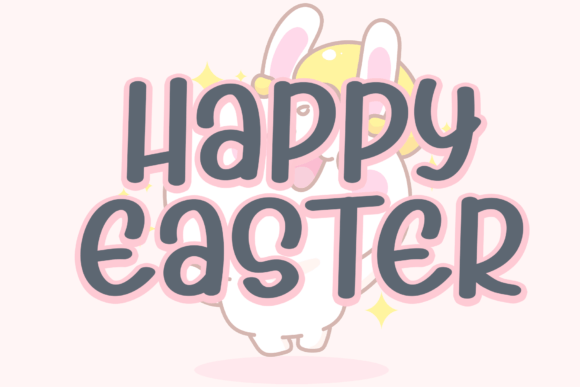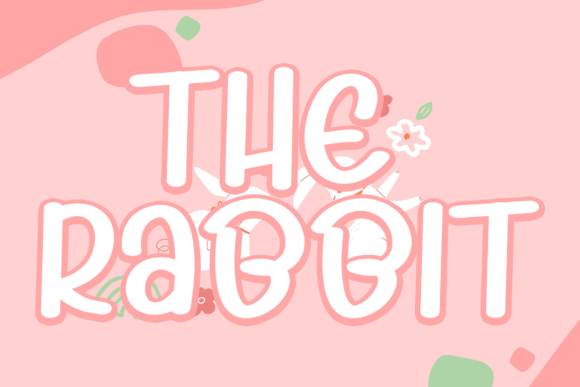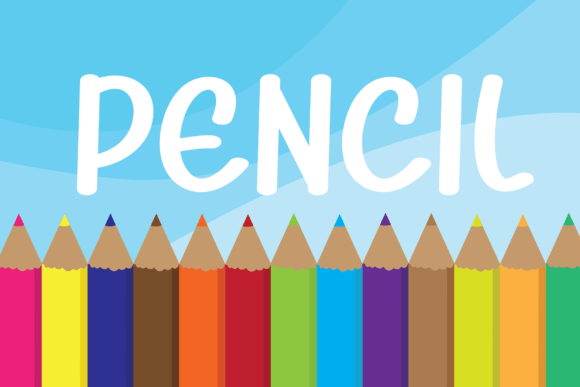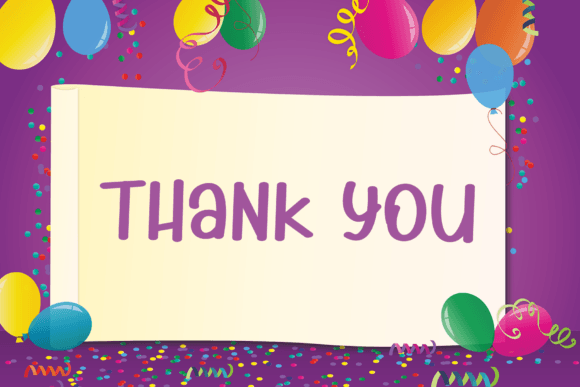
The Perfect Font for a Whimsical Touch
Have you ever been stuck brainstorming the perfect font for a design project, only to have a spark of creativity strike when you least expect it? Maybe it was a stroll through a field of flowers, a conversation with a friend, or simply a moment of silence that led you to the perfect font. For many designers, this moment of clarity often involves the search for a font that adds a touch of whimsy and personality to their work.
Enter the adorable Bunny Font, a sweet and friendly handwritten font that’s sure to bring a smile to anyone’s face. Ideal for writing wedding invitations, cards, or any other design that needs a fun touch, Bunny Font is a valuable addition to any designer’s toolkit.
With its cute and playful style, Bunny Font is a must-have for designers looking to add a little extra magic to their designs.
Bunny Font Key Features
- Size: The font comes in 4 different font sizes, including a condensed version, a regular version, a bold version, and an outline version.
- Resolution: The font is designed for use at high resolutions (up to 1200 dpi) and can be scaled up or down without losing its quality.
- Unique Characteristics: Bunny Font features a unique, hand-drawn design with a playful and whimsical feel, making it ideal for use in children’s books, magazines, and other publications.
- Vector Graphics: Bunny Font is a vector-based font, which means it can be scaled up or down without losing its quality and can be easily edited using vector graphics software.
Bunny Font Review
When I first saw the Bunny Font, I was intrigued by its playful and whimsical design. The font is perfect for those looking to add a touch of cuteness to their designs. ✨ One of the standout features of this font is its versatility. It comes in various styles and weights, making it suitable for a wide range of applications, from logos and branding to children’s books and product packaging.
Here are some of the key features that make the Bunny Font shine:
- Wide range of styles and weights
- Perfect for children’s content and playful branding
- May not be suitable for formal or professional applications
- Some characters may not be as detailed or refined as others
- Limited support for non-Latin scripts
Overall, I think the Bunny Font is a great choice for designers looking to add a playful touch to their work. While it may not be suitable for every project, its versatility and customizability make it a great option for those who need a fun and engaging font. With some careful consideration and planning, the Bunny Font can be a valuable addition to any design toolkit.
Tips for Getting the Most Out of Bunny Font
To get the most out of Bunny Font, use it in creative and playful ways, such as:
- Creating whimsical social media posts and graphics.
- Designing children’s book illustrations and characters.
- Adding a touch of personality to your branding and marketing materials.
Bunny Font is commonly used in:
- Social media posts and graphics.
- Children’s book illustrations and characters.
Lobster Font is a cursive, handwritten font perfect for adding a touch of elegance and sophistication to your designs. It’s ideal for use in invitations, wedding cards, and other formal documents where a touch of whimsy is needed.
Compared to Bunny Font, Lobster Font has a more refined and polished look, making it suitable for a wider range of applications. While Bunny Font is more playful and childlike, Lobster Font is more sophisticated and elegant.
Q: What is the character set and language support for Bunny Font?
Bunny Font includes a comprehensive character set, covering Latin, Cyrillic, and Greek scripts, with support for over 100 languages. The font also includes a wide range of symbols, punctuation marks, and dingbats, making it suitable for a variety of design applications.